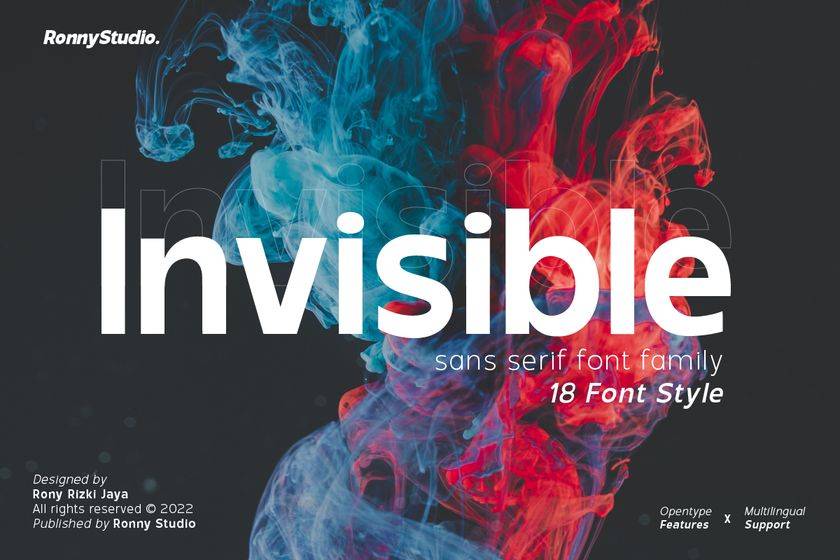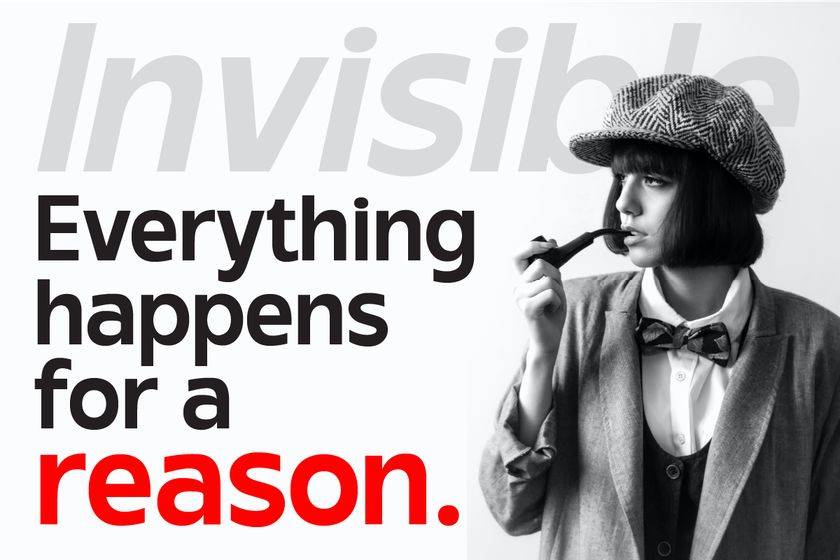
Invisible Font is a bold, sans serif typeface featuring a clean, geometric design with uniform stroke widths and a modern, strong presence. Its wide, well-balanced letterforms and high x-height contribute to excellent readability, making it ideal for impactful headlines, branding, and advertising where clarity and confidence are key. This versatile font works well for contemporary, professional projects looking to make a bold and straightforward statement.
Invisible Font
About Invisible Font
| Font family | Invisible Font |
| Release date | 2022-04-17 |
| Designer | Rony Rizki Jaya |